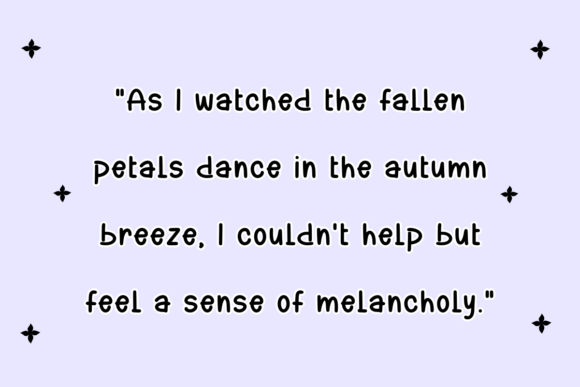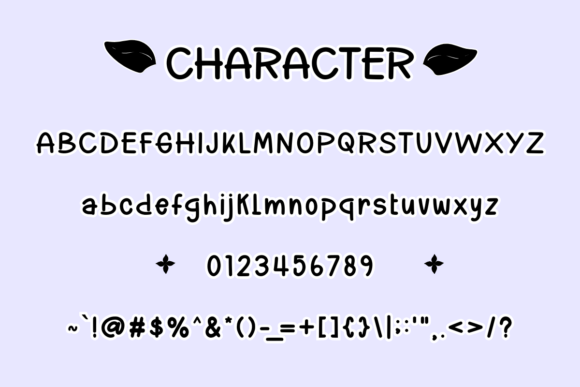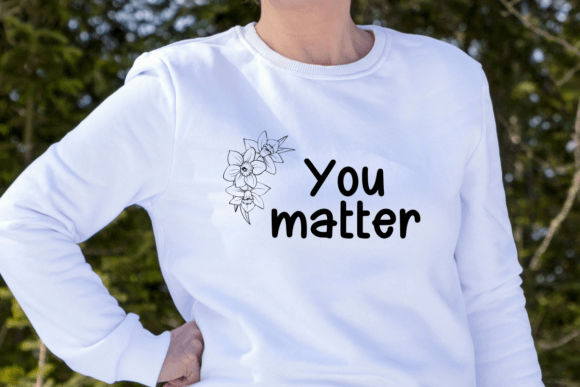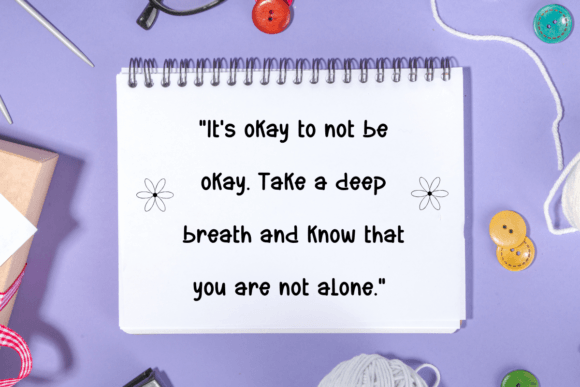
The Designer’s Delight: Fallen Petals Font
I’ll never forget the time I was working on a logo design project for a local florist. I had a clear vision of a beautiful, modern design, but I just couldn’t find the right font to bring it all together. The client wanted something clean, friendly, and elegant, but not too fancy. After hours of scouring font websites and trying out different combinations, I stumbled upon Fallen Petals Font. And just like that, my design problems disappeared! ✨
So, what makes Fallen Petals Font so special? Let’s dive into the good stuff and, of course, a few minor quirks.
- ✅ Clean and Modern Design: Fallen Petals Font boasts a sleek, sans-serif design that’s perfect for modern projects.
- ✅ Easy to Read: The smooth, simple letters make it a breeze to read, even at smaller font sizes.
- ✅ Versatile: This font is perfect for logos, posters, social media designs, and so much more.
- ✅ Welcoming Feel: The friendly vibe of Fallen Petals Font makes it ideal for brands that want to appear approachable and stylish.
While Fallen Petals Font is amazing, there are a few minor things to keep in mind:
- ⚠️ Limited Extras: This font doesn’t come with a ton of extra features or variations, but what it does offer is high-quality and well-designed.
- 🤔 Not Ideal for Body Text: While it’s easy to read, Fallen Petals Font might not be the best choice for long blocks of body text due to its clean, modern design.
The Story Behind Fallen Petals Font
Fallen Petals Font was designed with the intention of creating a clean, modern sans-serif font that still feels friendly and approachable. The designer aimed to craft a font that could be used across various platforms and projects, from logos and posters to social media graphics.
Q: What makes Fallen Petals Font unique?
A: Its clean design, friendly feel, and ease of readability make it perfect for a wide range of design projects.
Q: Is Fallen Petals Font suitable for body text?
A: While it’s easy to read, it’s primarily designed for headings and titles. For long blocks of text, consider a font specifically designed for body text.